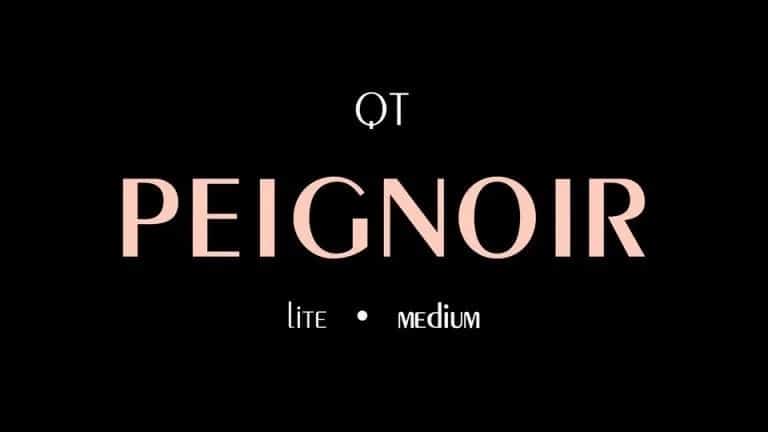
Peignior Sans Serif Font
Introducing Peignior, an elegant, modern sans serif font family.
Meticulously drawn with high contrast between thick and thin strokes with the goal of making even the simplest sans serif letters look sensual, elegant, and warm.
It’s perfect for headlines, editorial uses, and advertising projects. Makes beautiful luxe logos and wedding invitations, too.